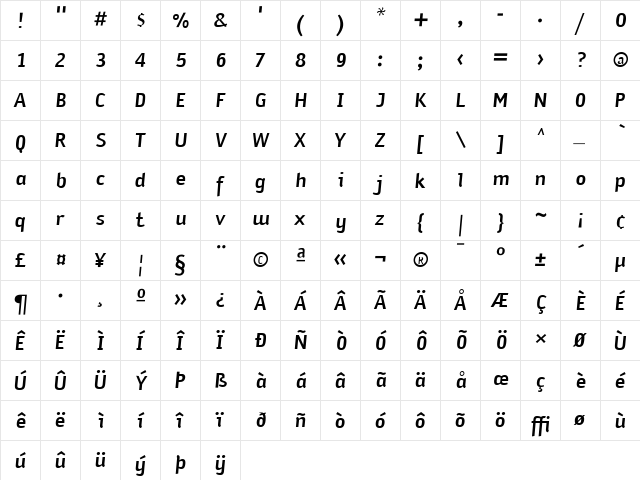
Sodium Medium Italic Font Preview
Sodium Medium Italic
Sodium Medium Italic Font Details
Design Context for Sodium Typeface
Sodium is a composed and adaptable typeface that performs quietly and consistently across a wide range of design contexts. The dynamic lean of this cut emphasises speed and emphasis in any layout.
Pro Tip: Use Sodium for emphasis, pull quotes, and subheadings where its slanted energy can add rhythm to the layout.